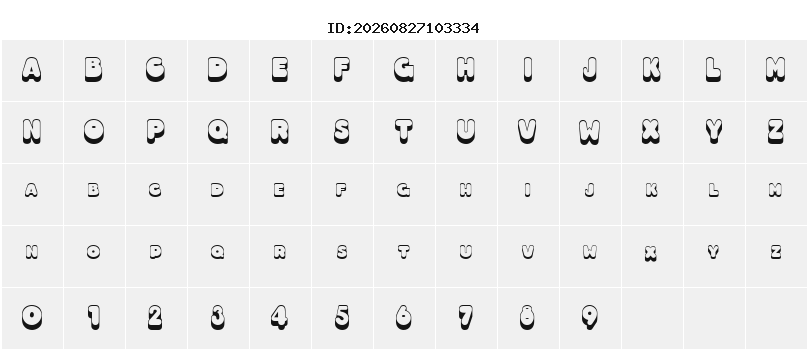
3-DHotDog Preview
• Font Name: 3-DHotDog
• Full Font Name: 3-DHotDog
About 3-DHotDog.ttf
3-DHotDog.ttf is a modern, elegant sans-serif font designed for ultimate readability and visual harmony. Perfect for branding, headlines, web design, and print materials.